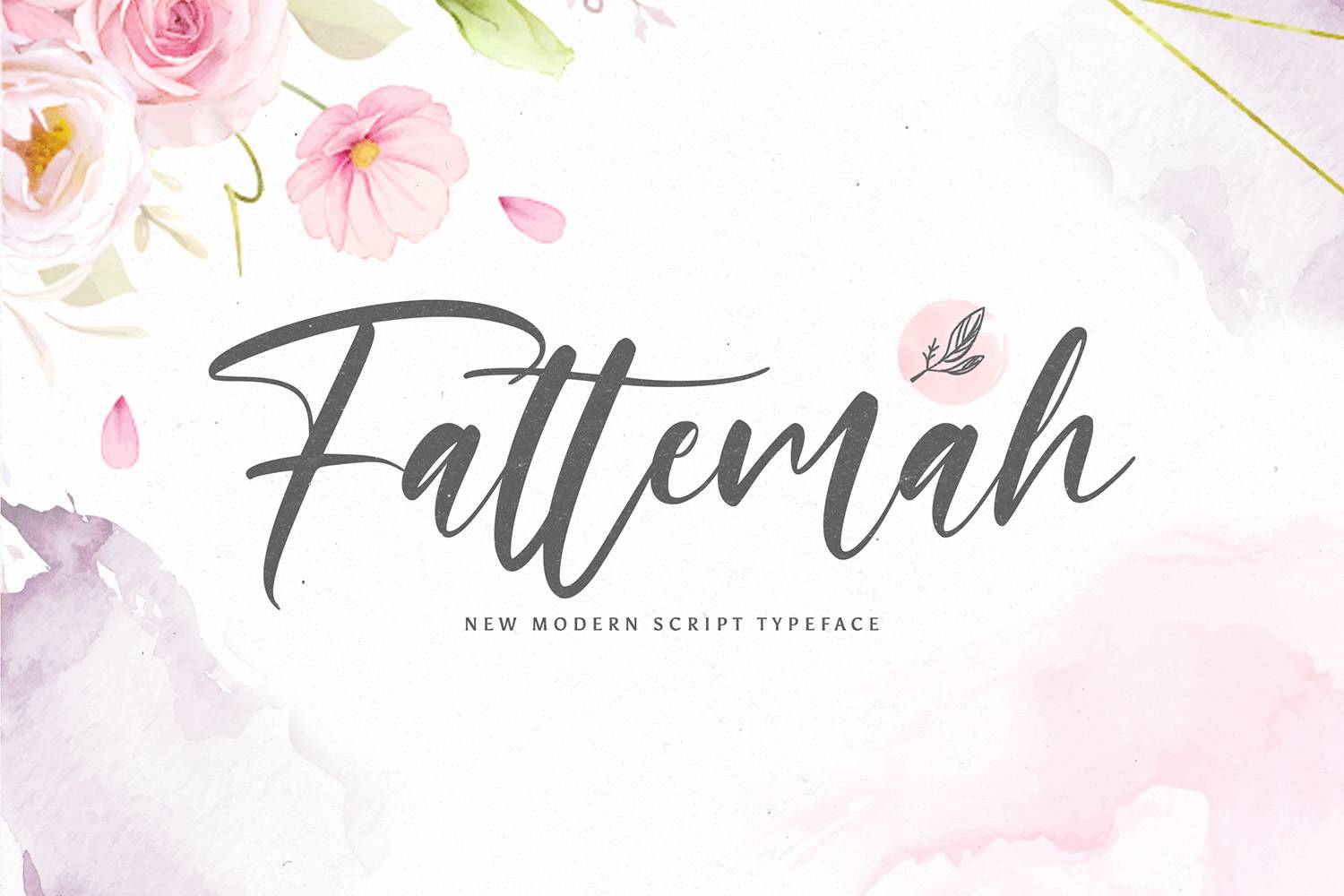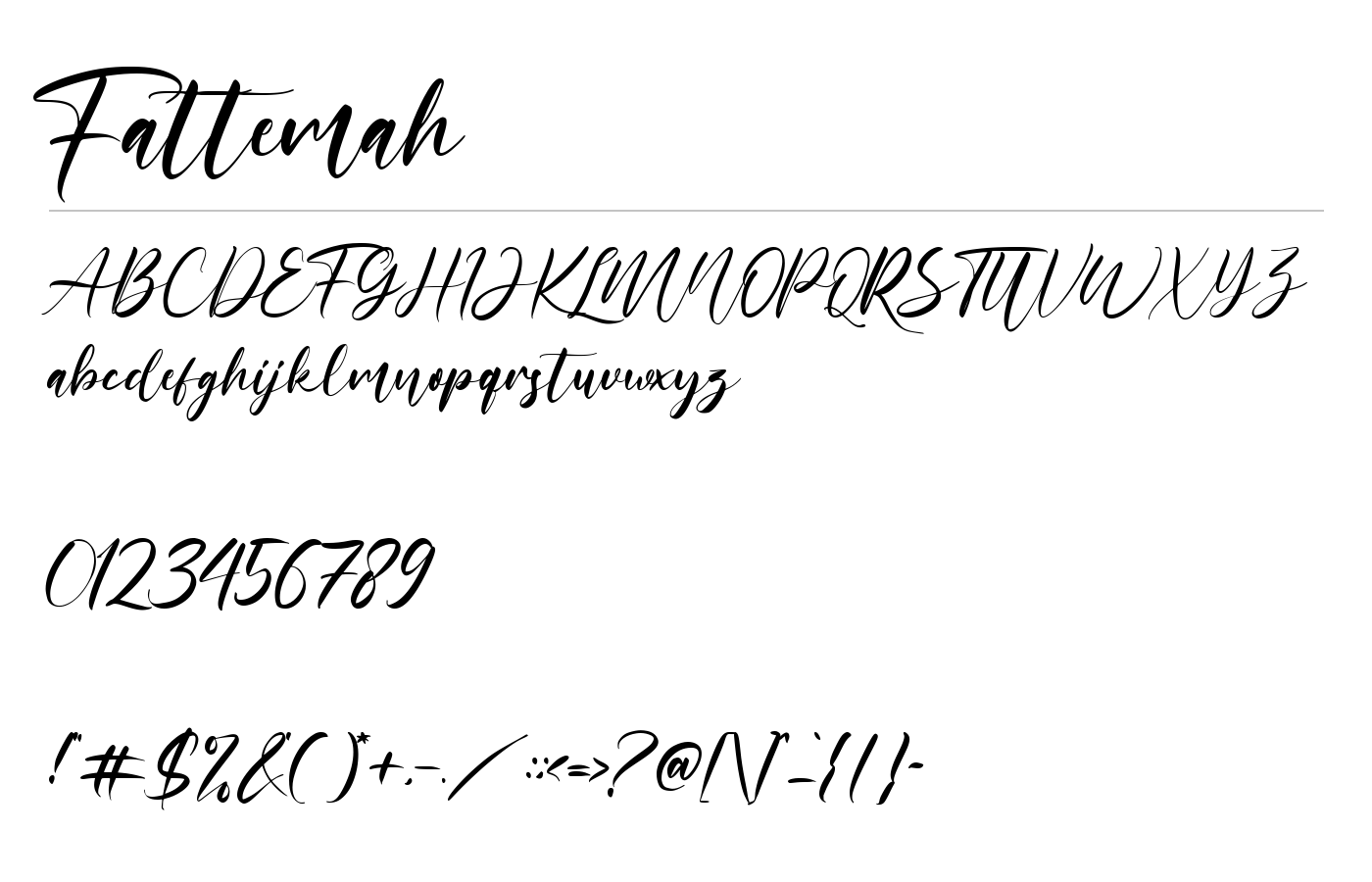
Fattemah is a graceful script font that combines elegant, flowing letterforms with a lively handwritten feel, featuring varied stroke weights that offer a charming contrast. Its tall x-height and smooth curves make it ideal for creating sophisticated, stylish designs that evoke warmth and personality, perfect for branding, invitations, and creative headlines. This font works beautifully in projects that seek a refined yet approachable look, lending a touch of modern elegance and artistic flair.
Fattemah Font